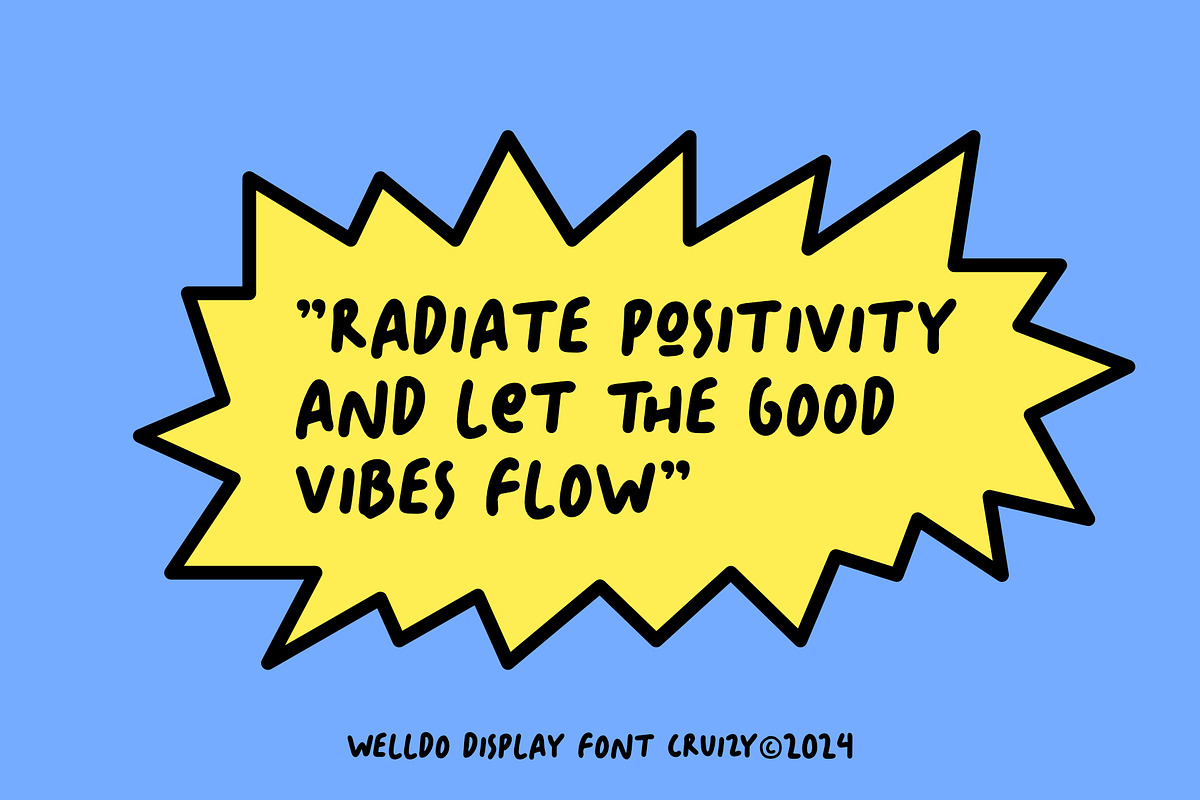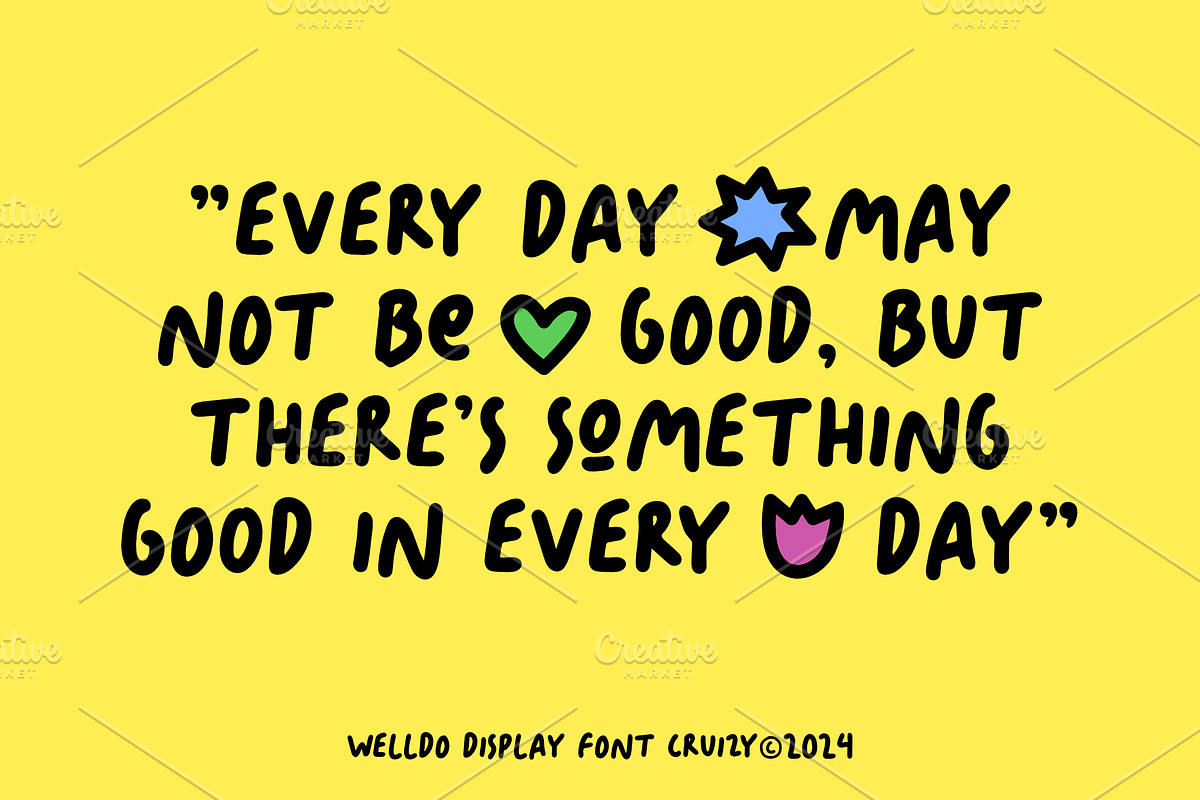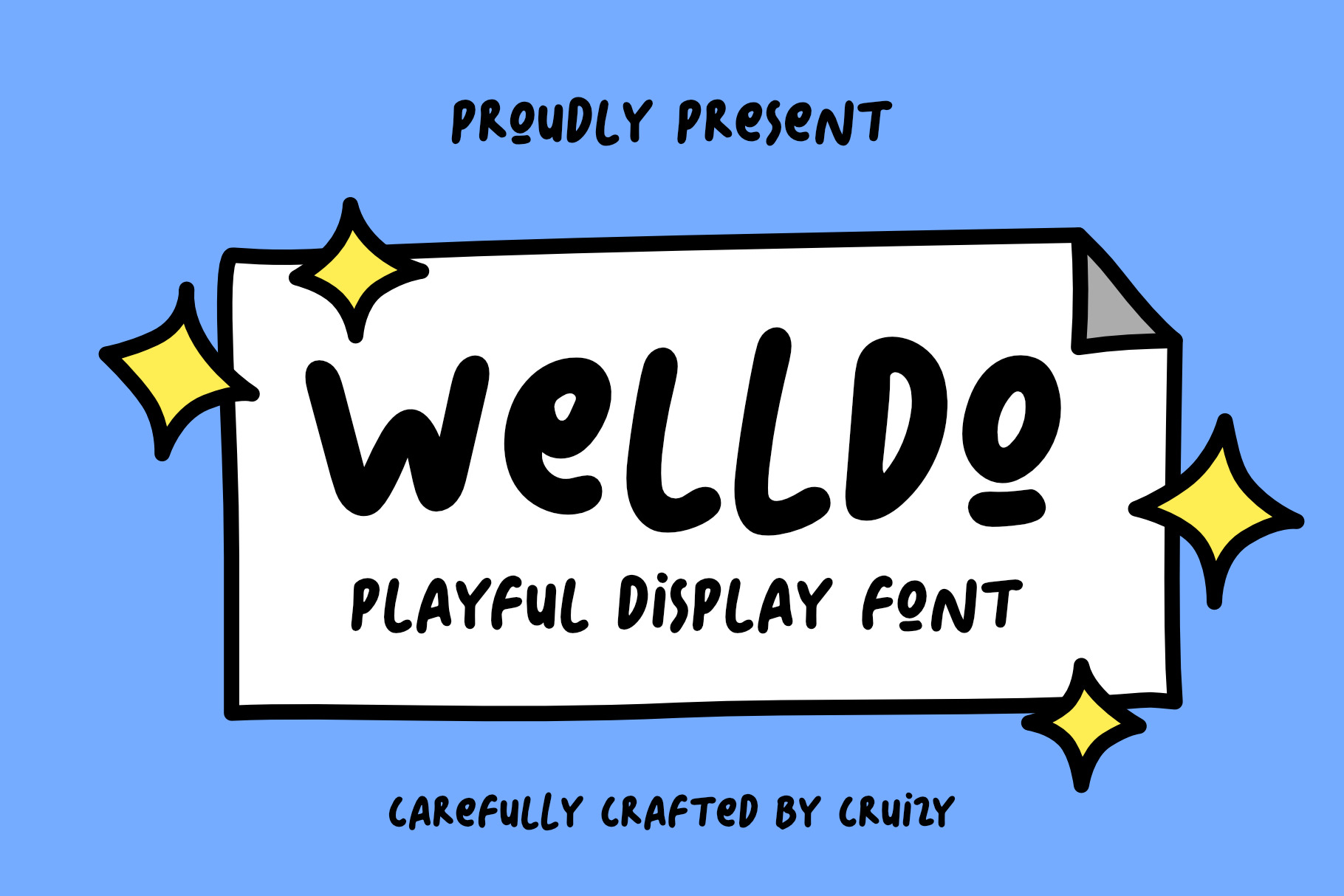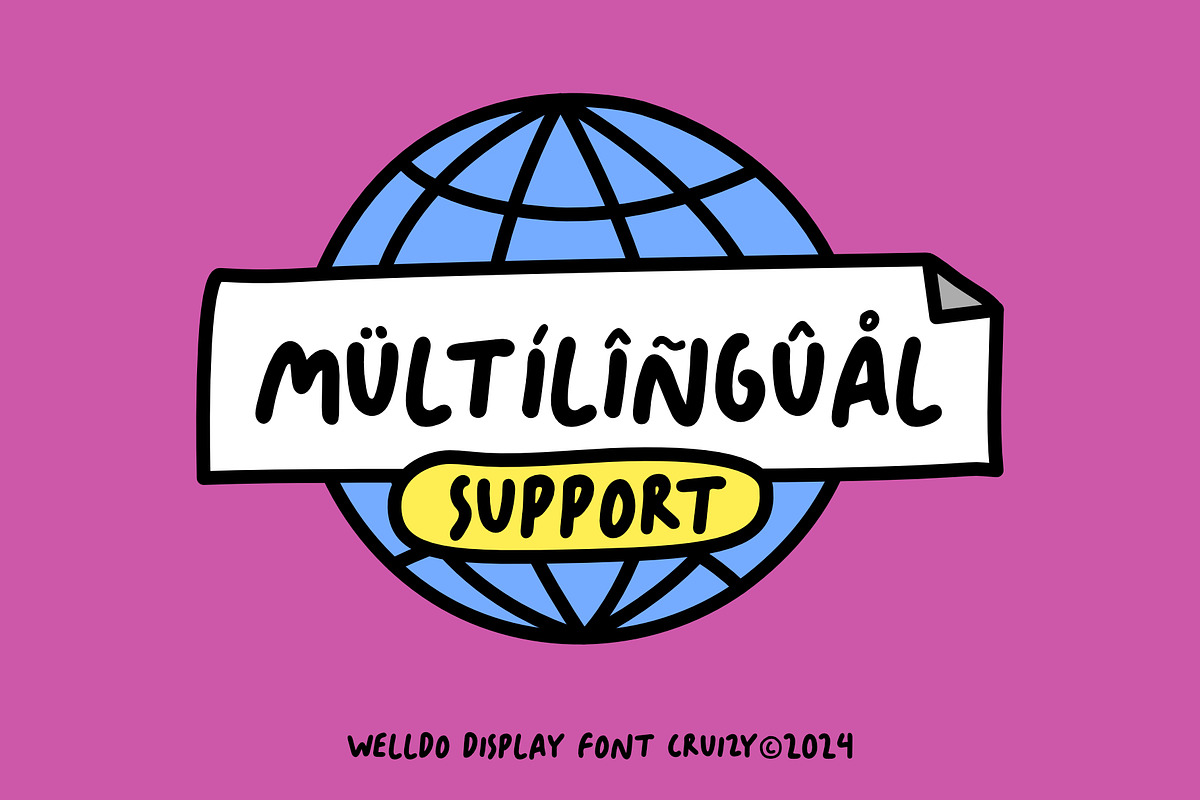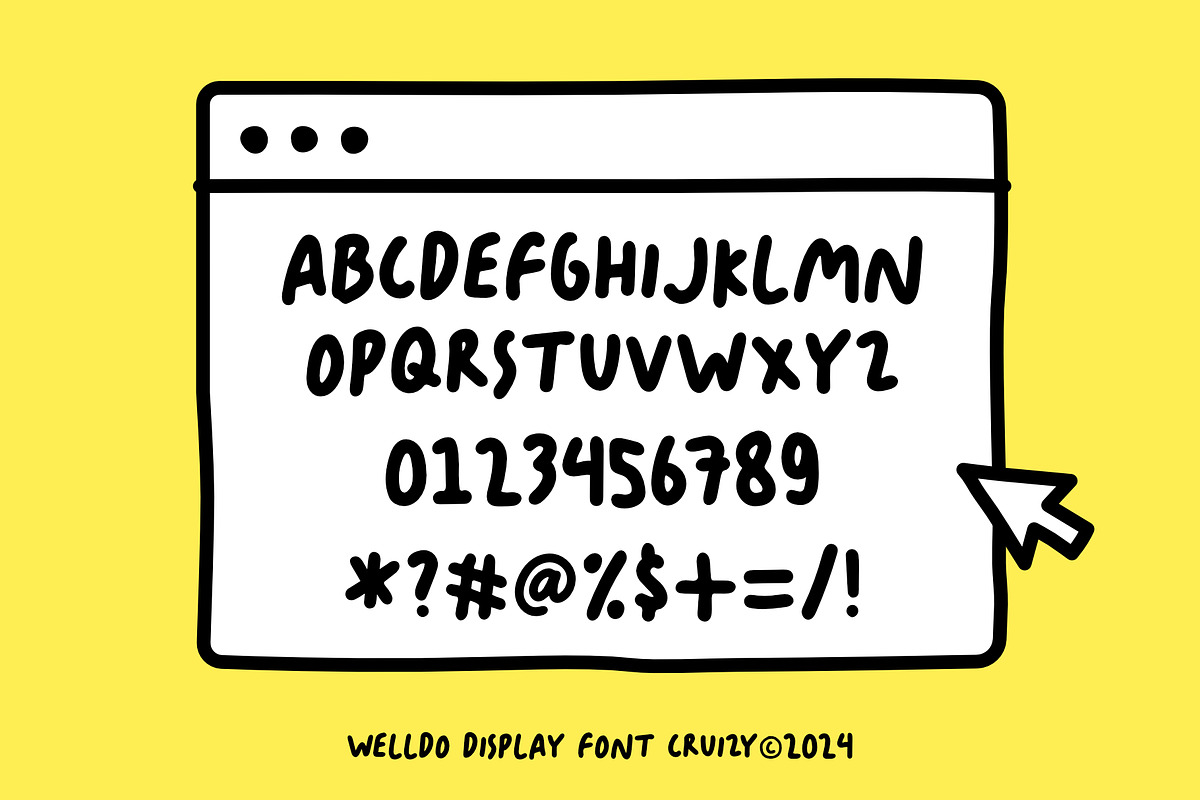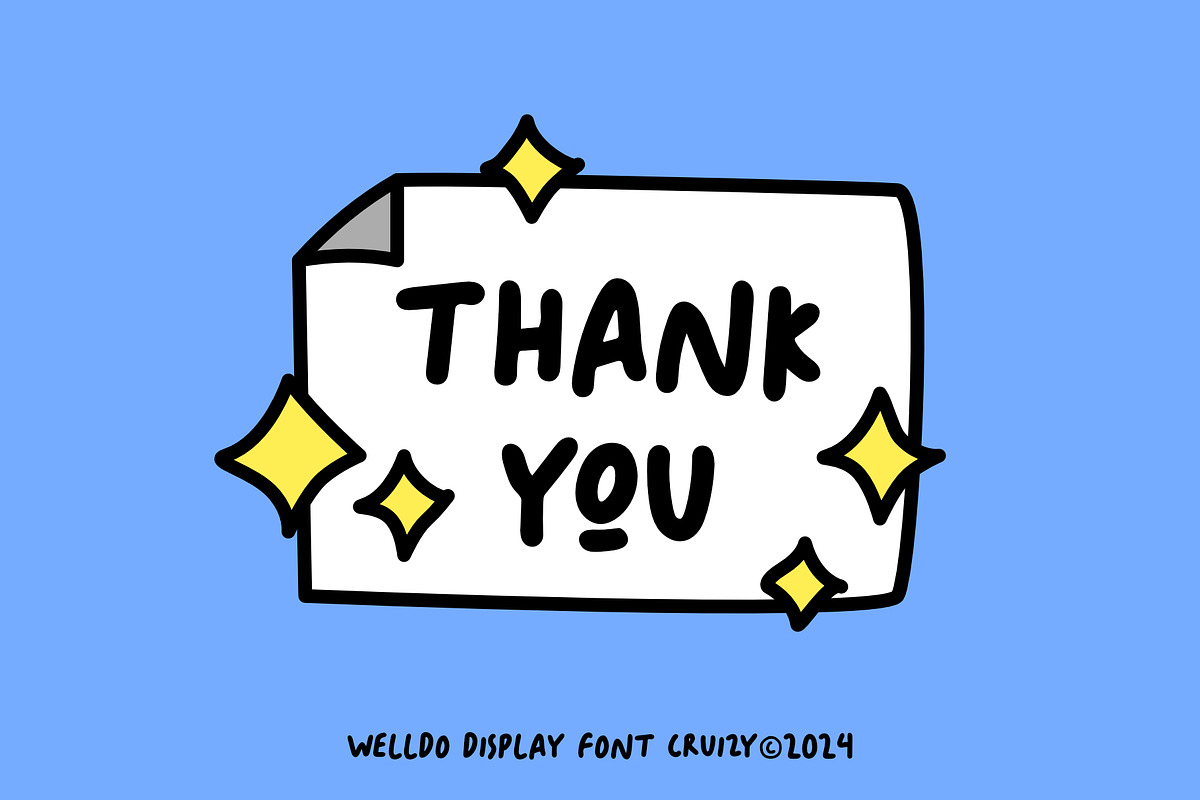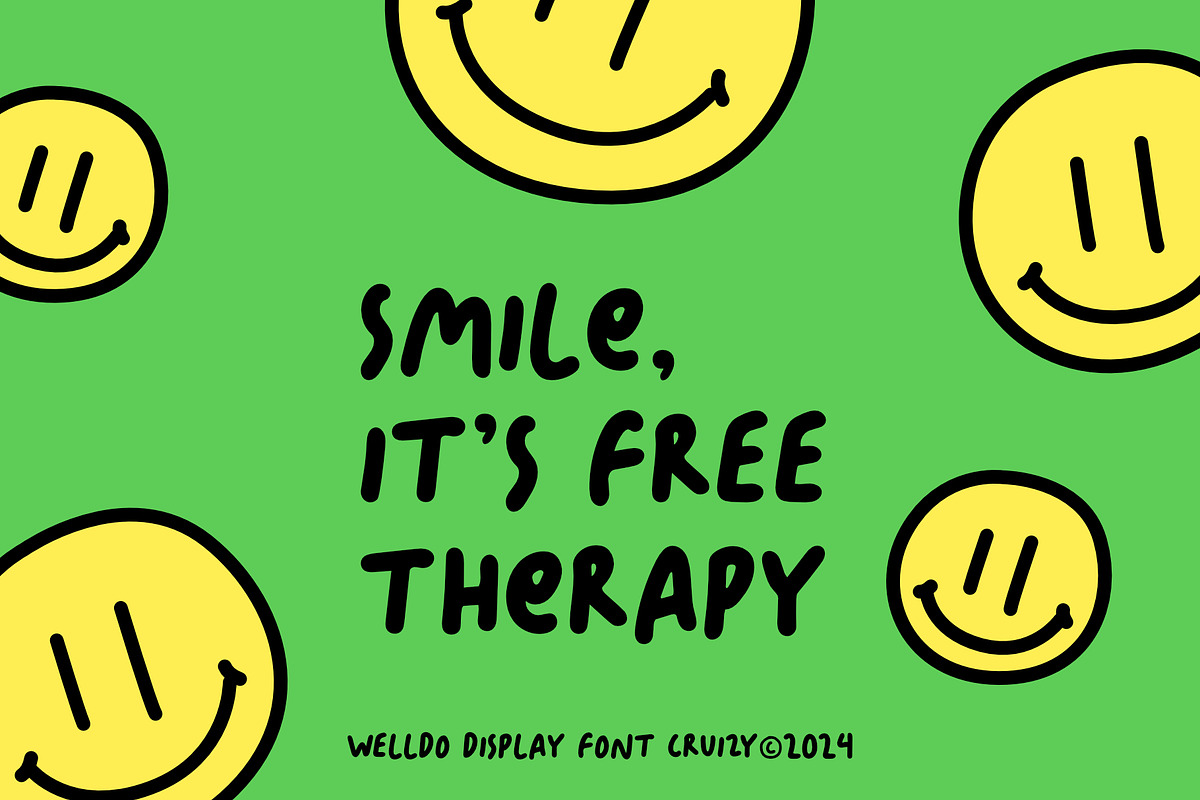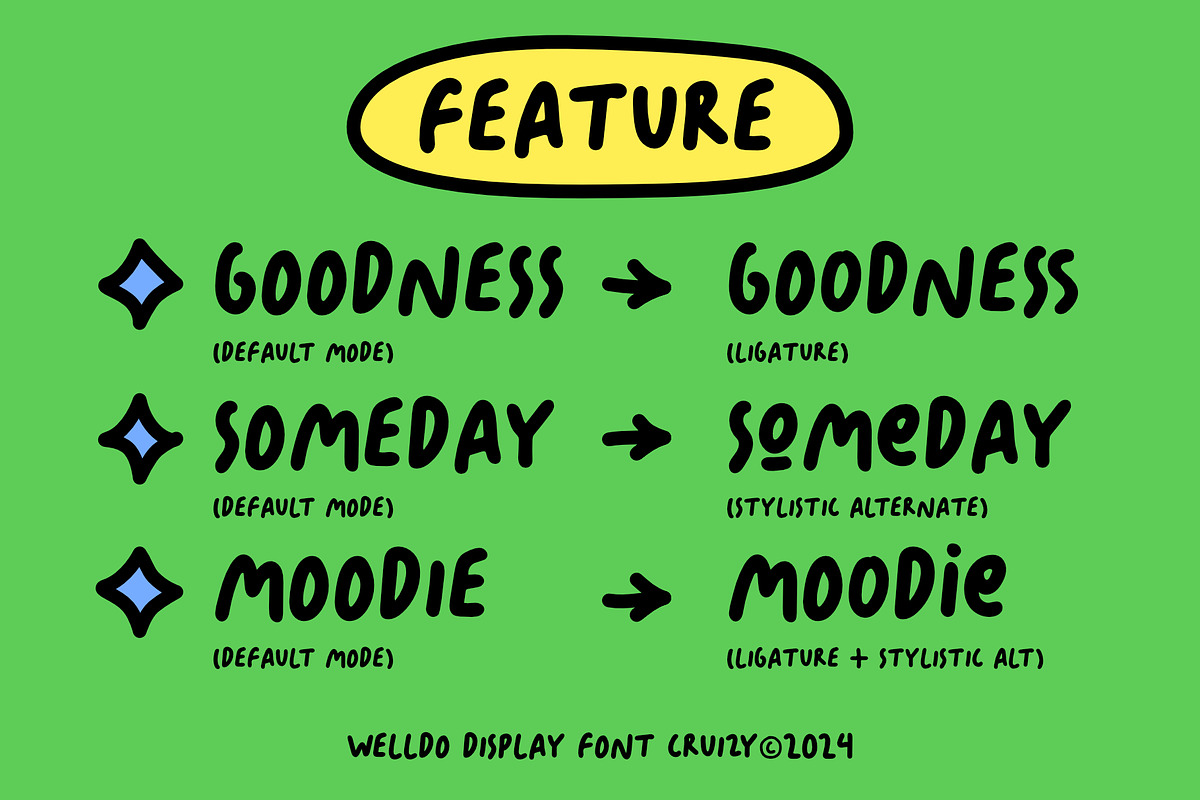
WELLDO - Playful Display Font
Make your design project more Fun and Playful with WELLDO - Playful Display Font. This All-Caps font included Ligature and Stylistic features.
Although Handwritten and playful WELLDO - Display Font is very versatile. You can maximize your project using this font. For Book Covers, Posters, Packaging, Merchandise, Social Media Content, and many more.